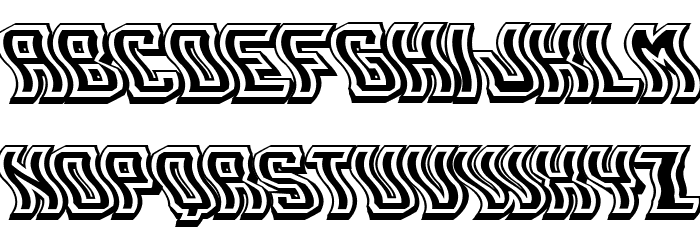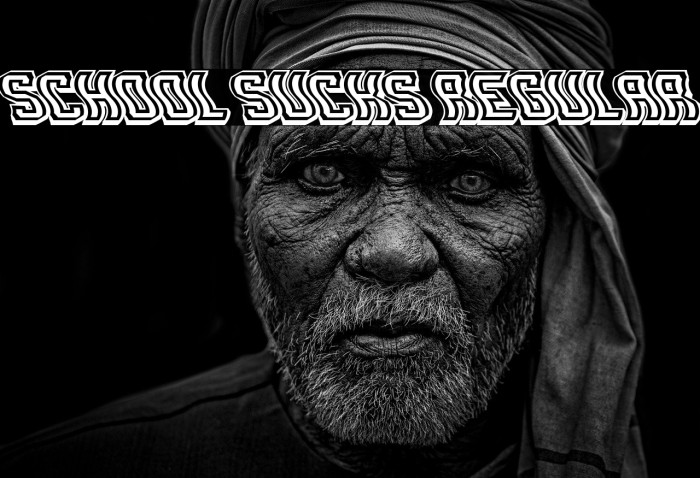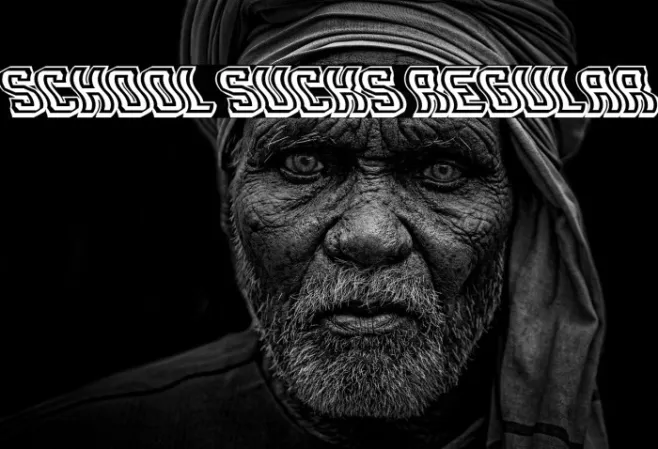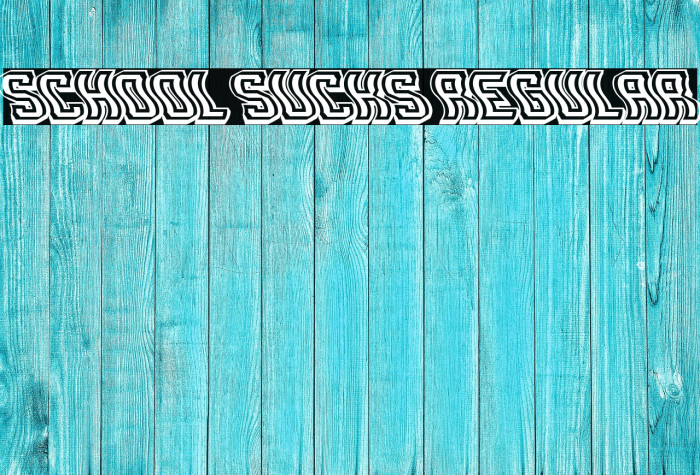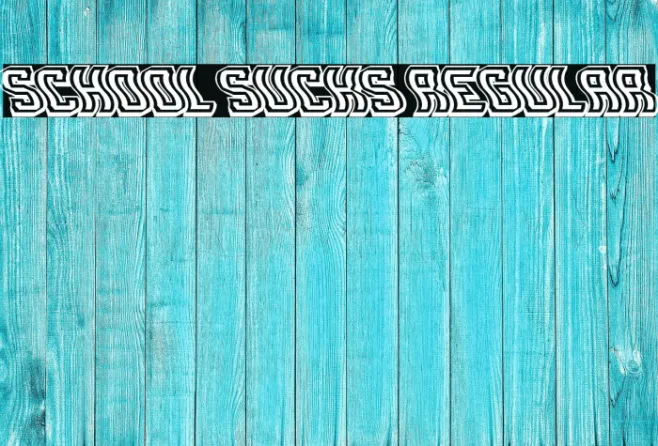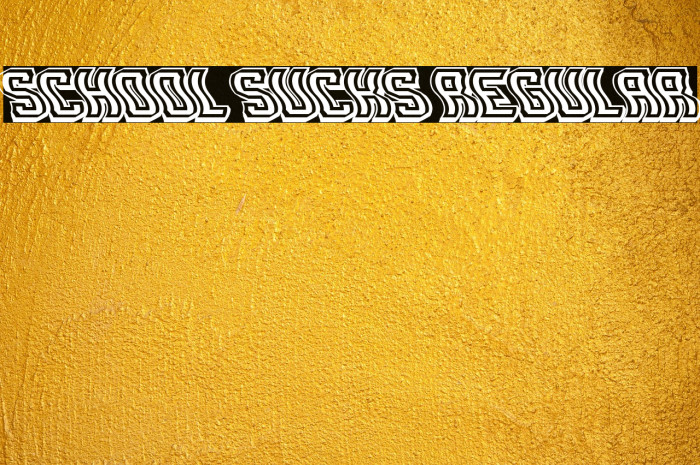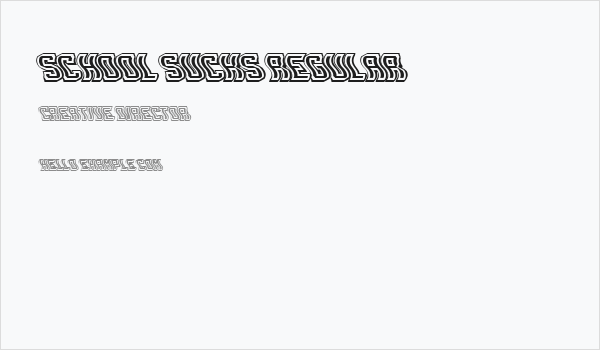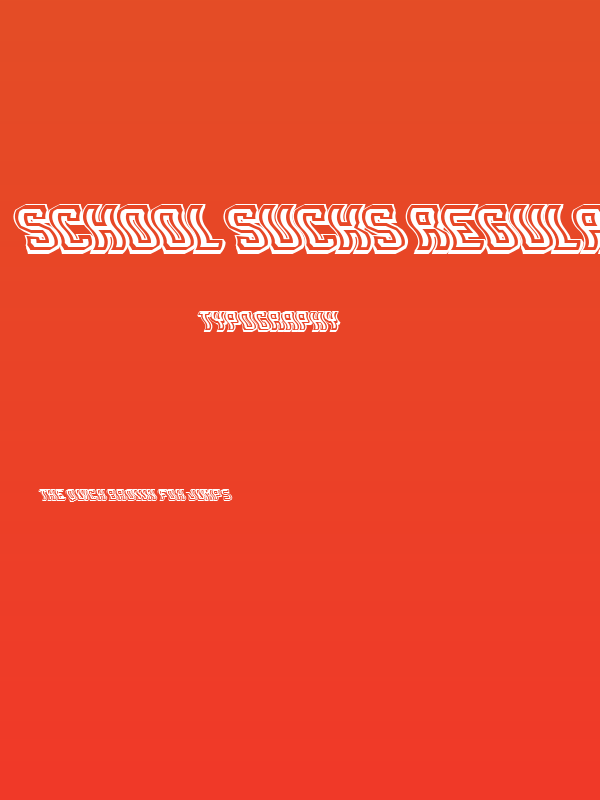
School Sucks Regular Font
School Sucks Regular Description
This font features a bold, three-dimensional style with a distinct shadow effect, giving it a dynamic and eye-catching appearance. The letters are uppercase and have a strong, geometric structure with sharp angles and clean lines. The shadowing adds depth, making the characters appear as if they are popping off the page. This style is reminiscent of retro or comic book aesthetics, making it suitable for designs that require a playful yet impactful look. The font's boldness ensures high visibility, making it ideal for headlines or titles.
Overall StyleRetro, Comic
Use CaseHeadlines, Posters, Titles
Proposed ProjectsIdeal for poster designs, comic book titles, video game graphics, and any project requiring a bold, playful aesthetic.